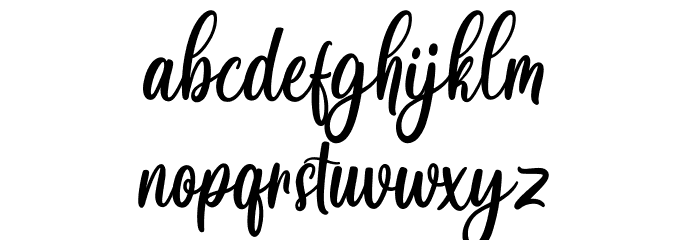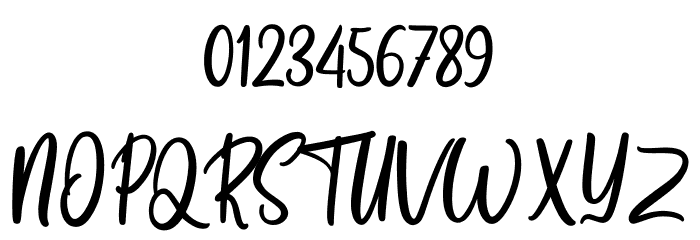
Carmeliya_demo Font
This font features a lively and flowing script style, characterized by its smooth, cursive strokes and elegant curves. The uppercase letters are bold and dynamic, with a slight slant that adds a sense of movement and grace. The lowercase letters maintain a consistent flow, with some characters featuring distinctive loops and swashes that enhance the overall aesthetic. Numbers are clear and legible, matching the style of the alphabet. The font's playful yet sophisticated appearance makes it versatile for various design projects.
A lively, flowing script font with elegant curves and dynamic strokes.
- Proposed Projects: Ideal for wedding invitations, greeting cards, branding, and logo design.
- Category: Script
- Use Case: Logos, Invitations, Decorative text